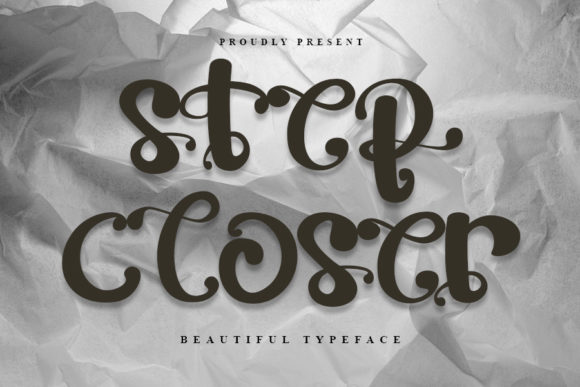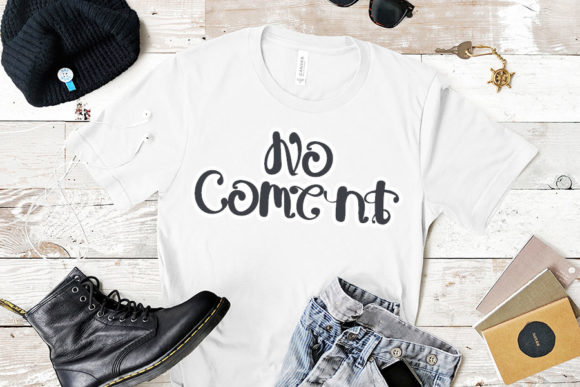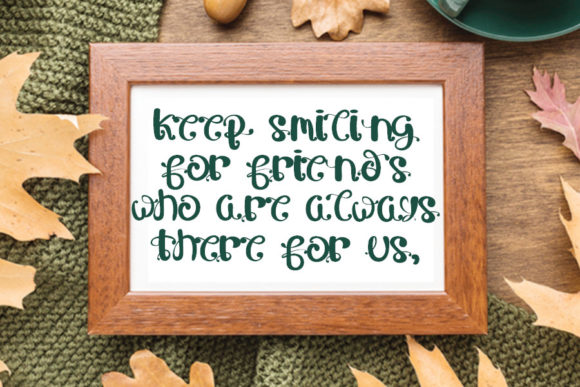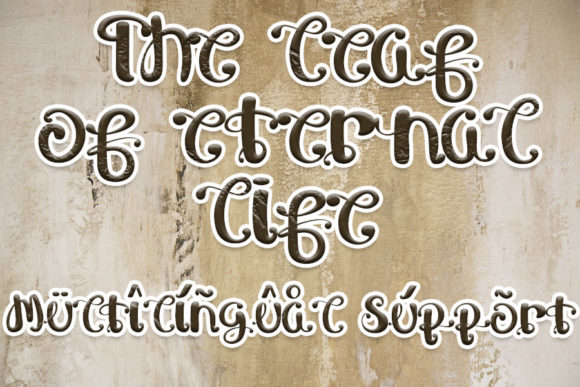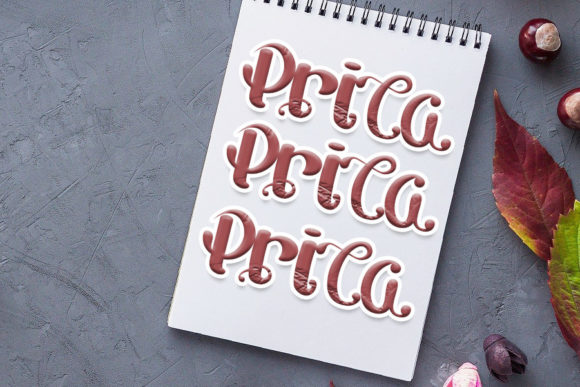
About Step Closer Font
Step Closer is a captivating and refined script font that brings a sense of adventure and authenticity to your designs. With its unique style and stunning letterforms, this font is perfect for adding a touch of intrigue and personality to your projects.
The flowing and graceful nature of Step Closer captures the essence of hand-lettering, creating a sense of authenticity and charm. Whether you’re working on logos, branding, invitations, posters, or any other design project, this font will elevate your work and make it stand out.
Step Closer’s versatility allows it to be used in a variety of design contexts. Its legible and well-balanced letterforms make it suitable for both headline and body text, ensuring readability without compromising on style. The subtle details and unique flourishes of this font add a touch of elegance and sophistication to any design.
With Step Closer, you have the freedom to explore and create. Its adventurous and authentic feel makes it a perfect choice for travel, outdoor, and exploration-themed designs. Whether you’re designing for a camping gear brand, a travel blog, or an adventure-themed event, Step Closer will infuse your designs with a sense of excitement and wanderlust.
Step Closer is designed to spark curiosity and draw attention. Its distinct style and captivating presence make it an ideal font for creating eye-catching headlines, titles, and logos. With this font, you can effortlessly create designs that leave a lasting impression on your audience.
So, take a step closer to your design goals with the beauty and uniqueness of Step Closer. Let its adventurous and authentic style inspire your creativity and bring your ideas to life. Embrace the spirit of exploration and let this font be your companion on your creative journey.